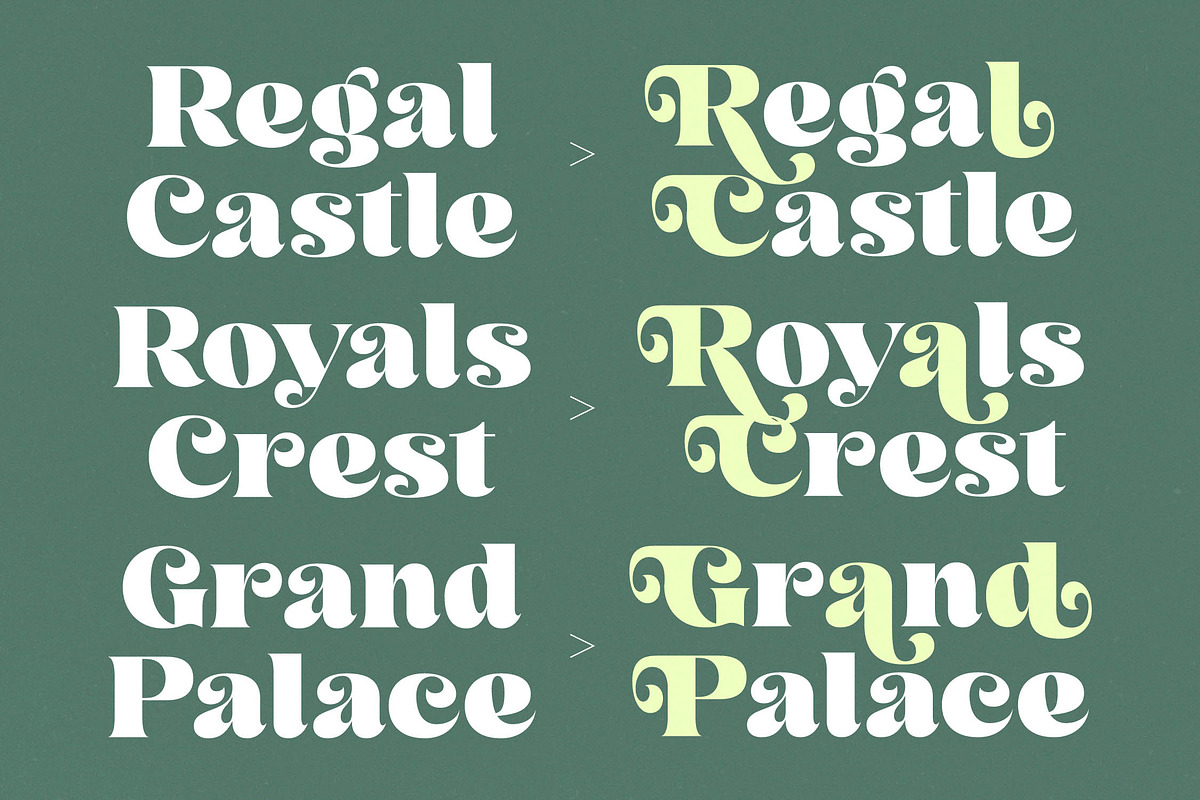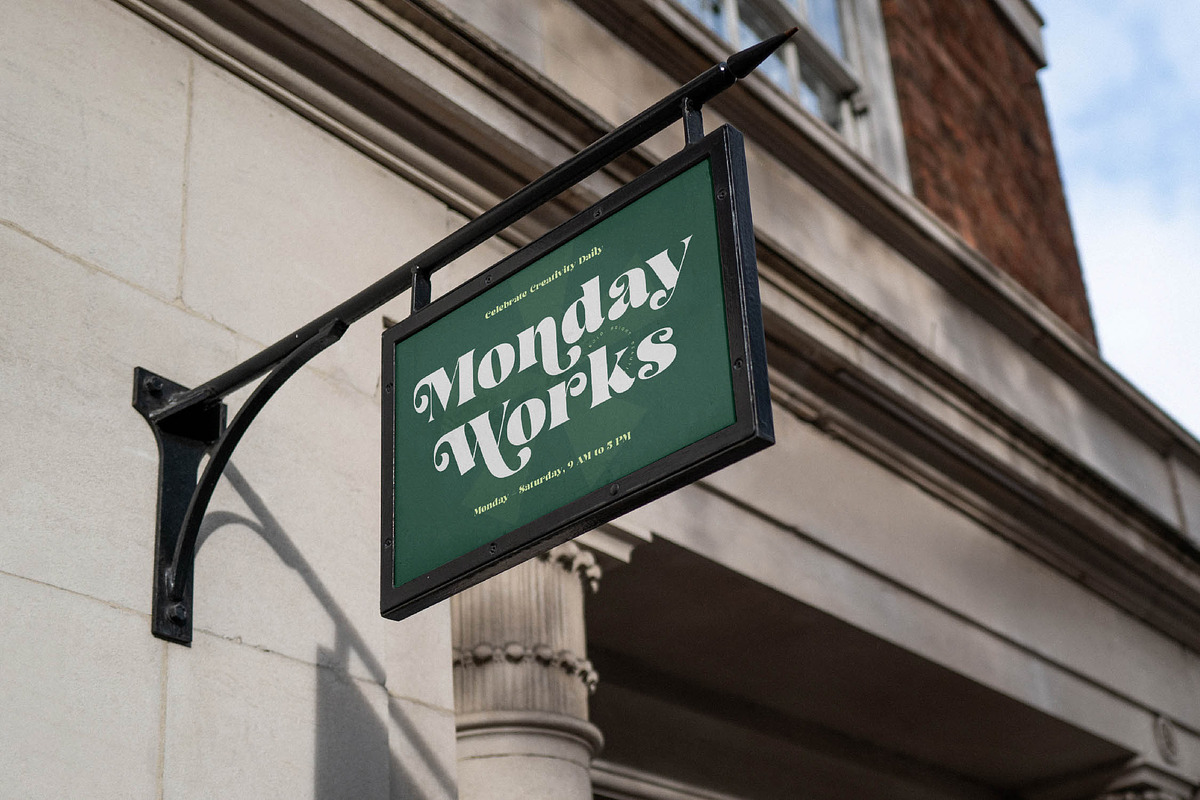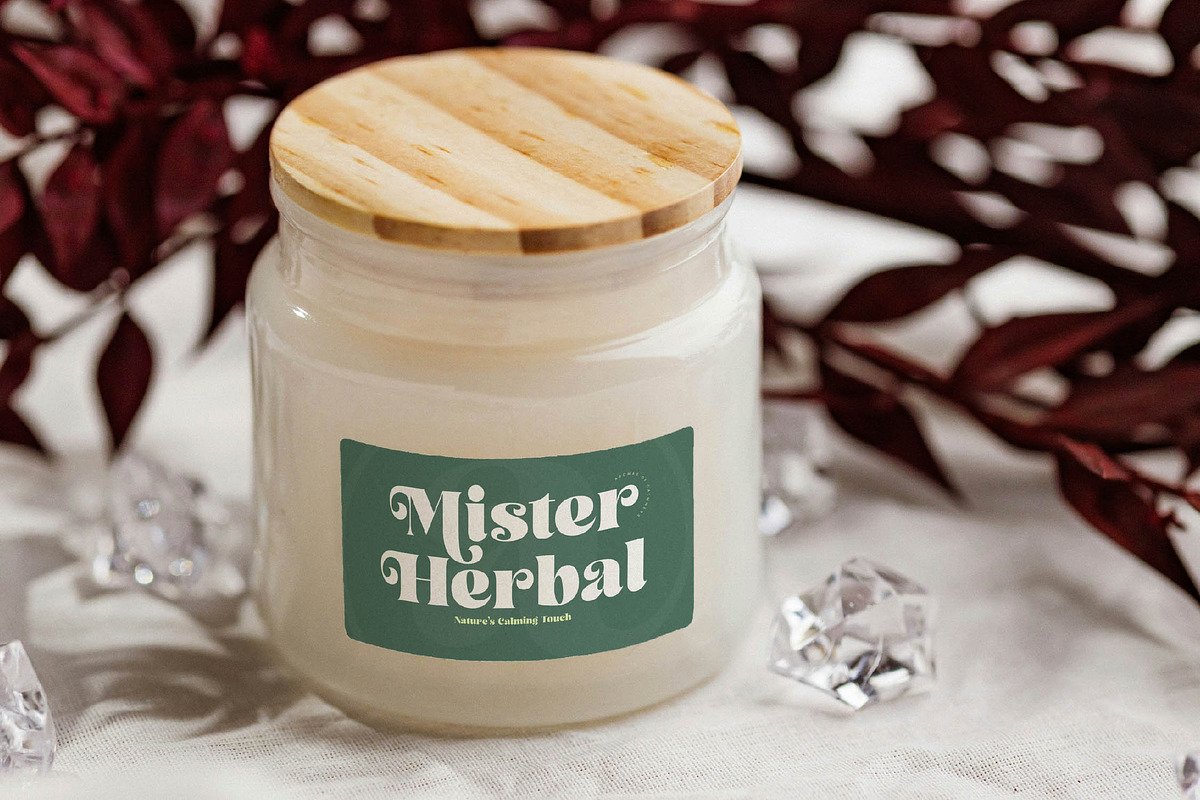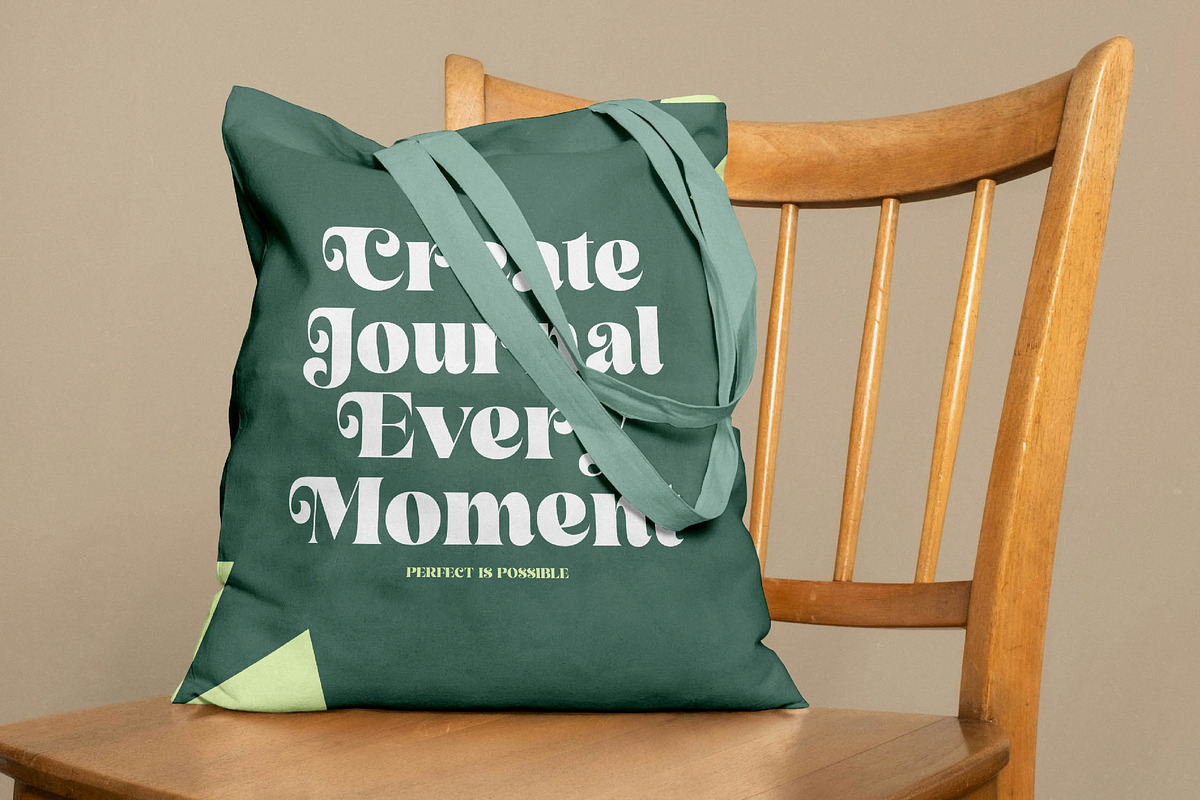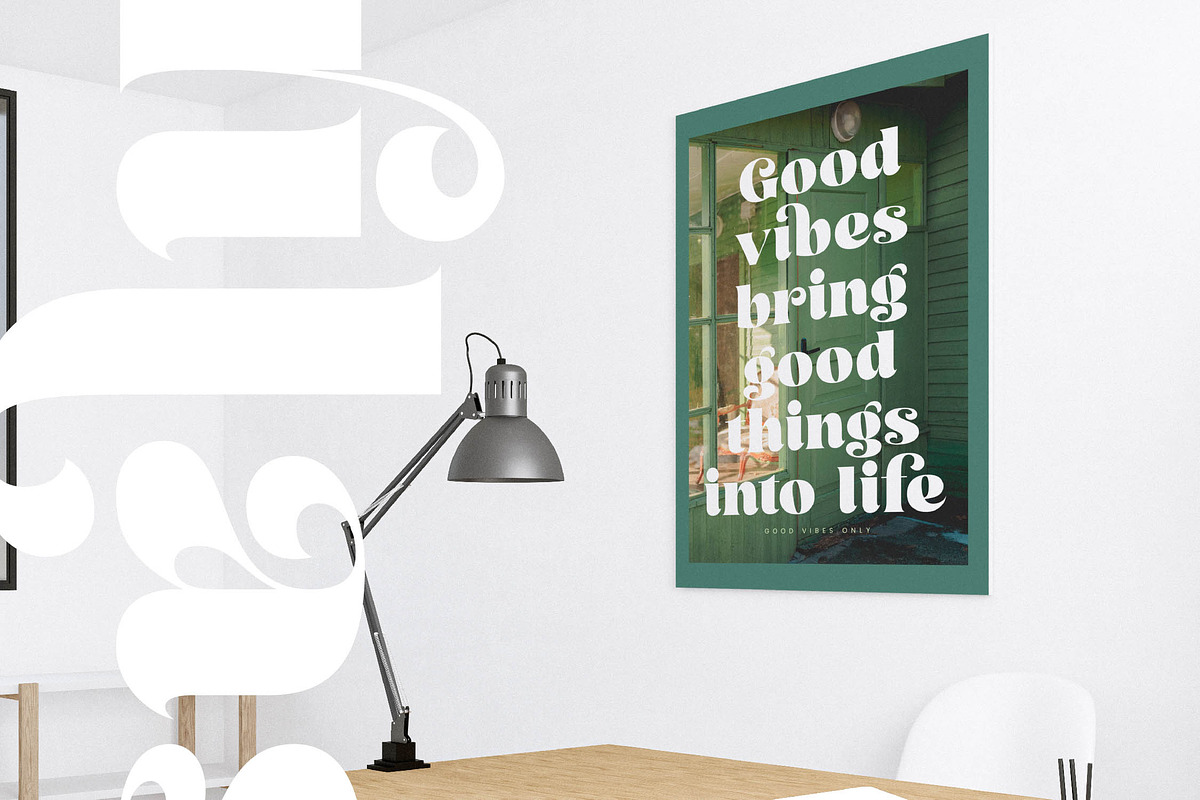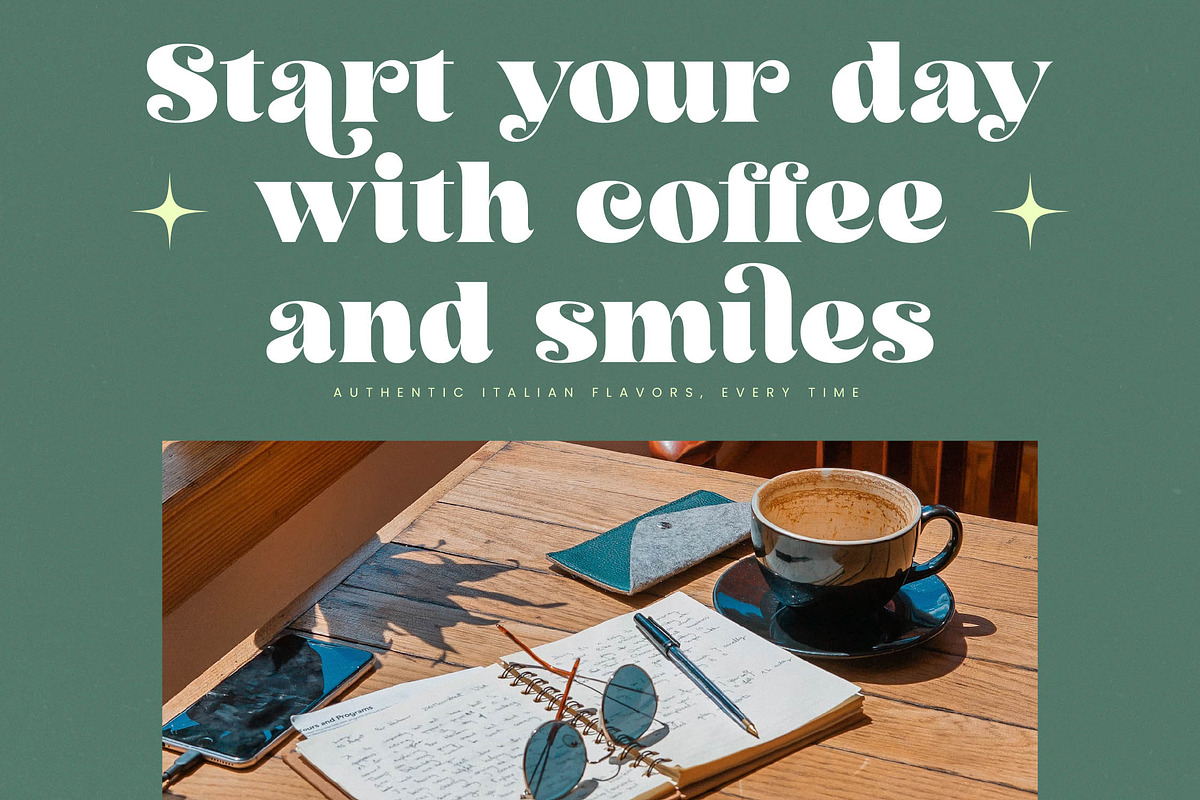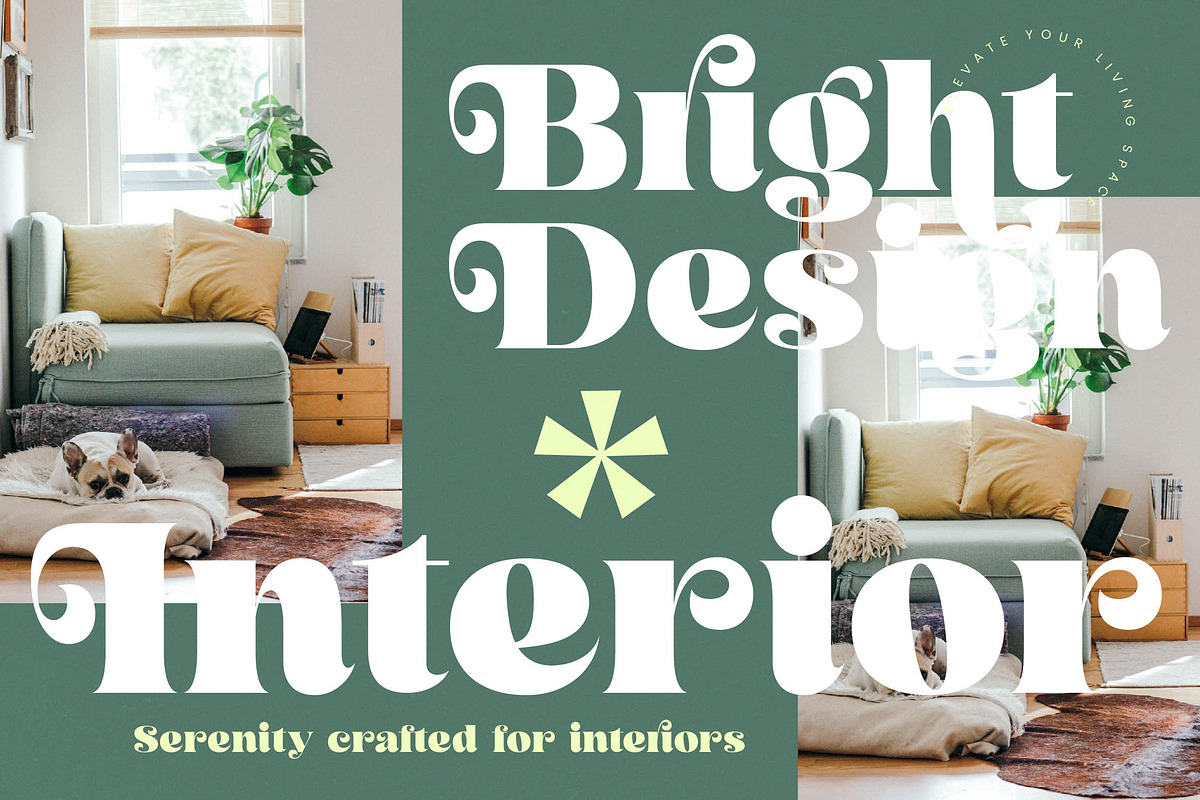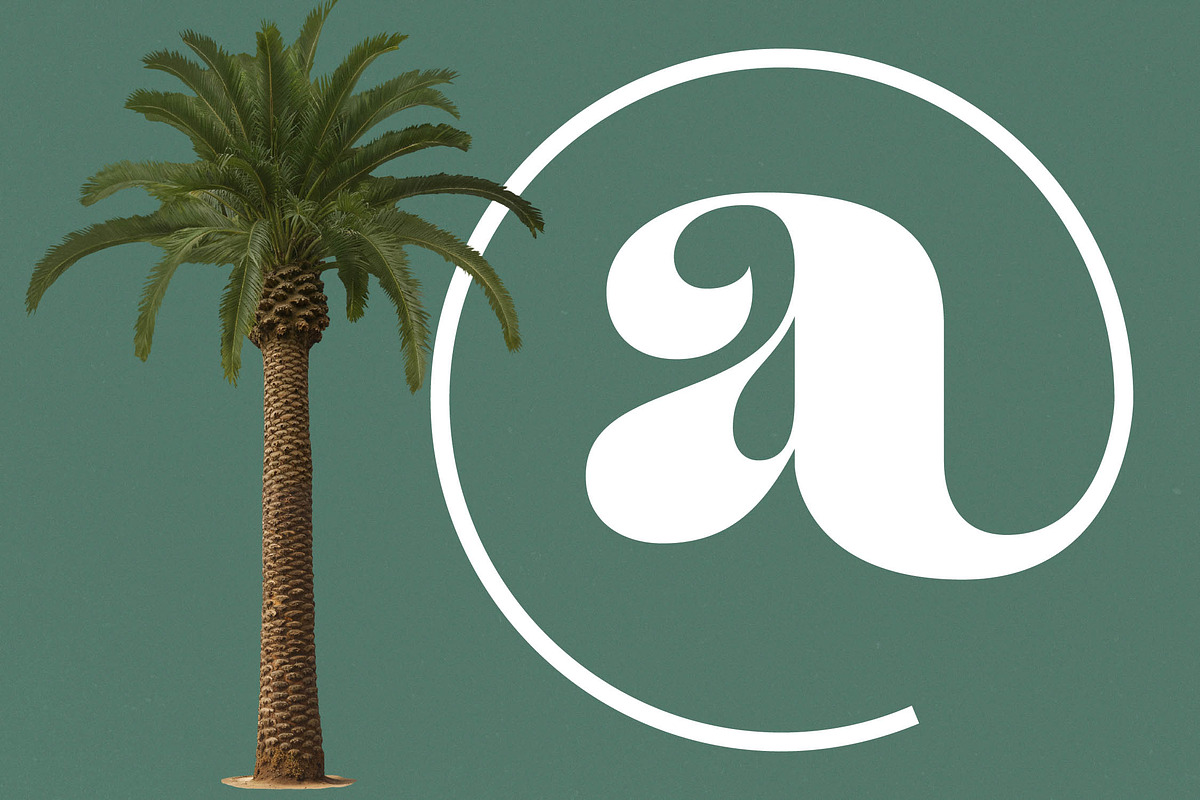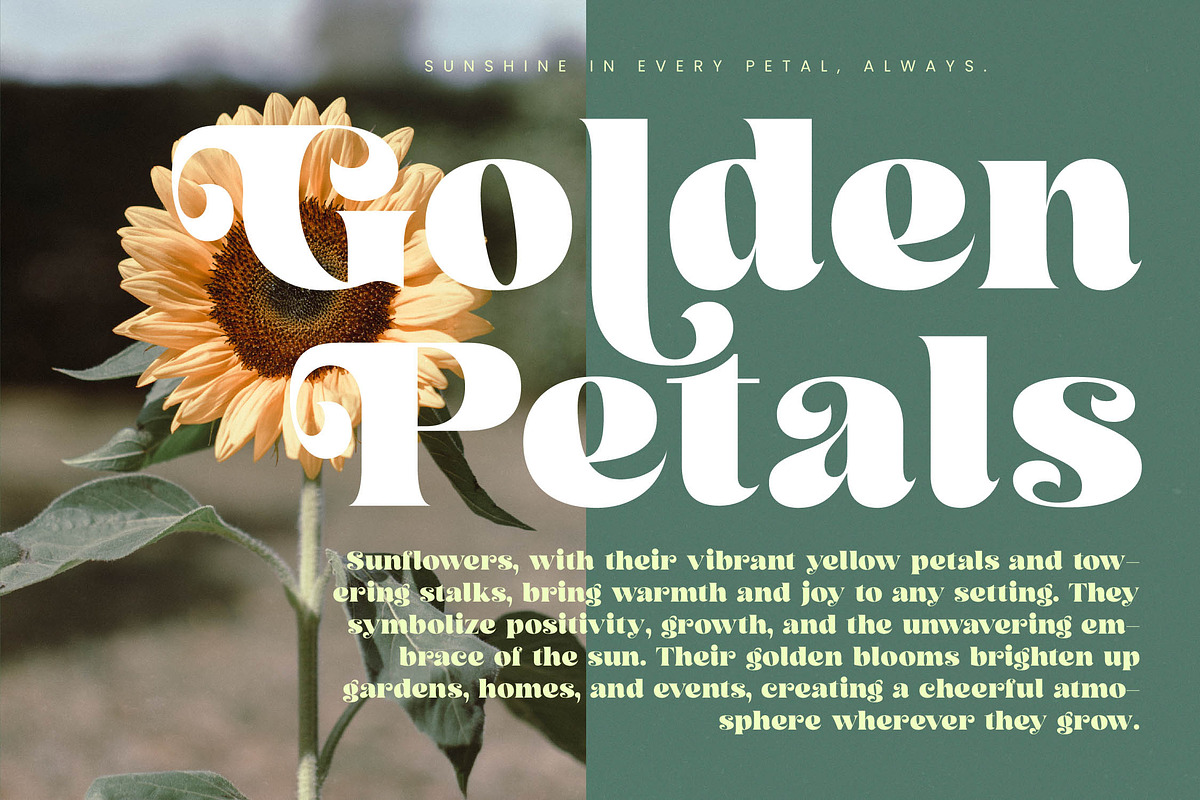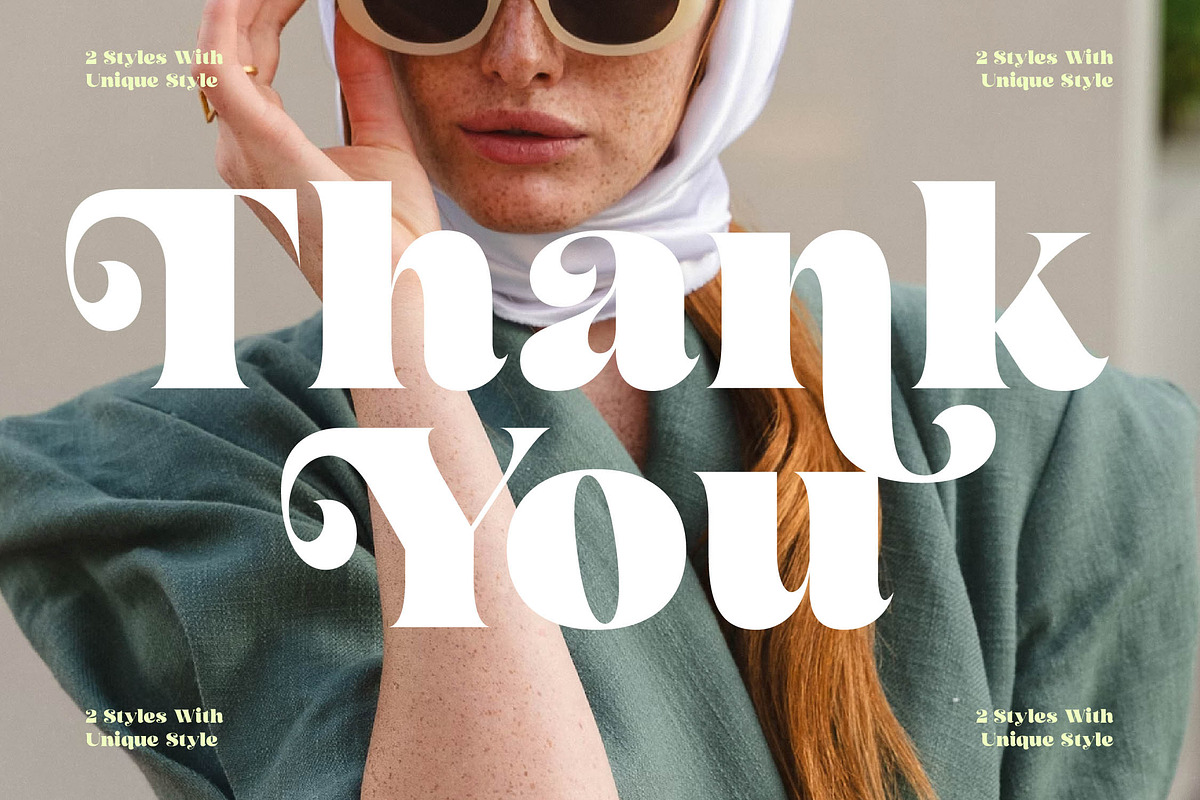
Arilast Kingde Modern Luxury Serif
Step into a world of timeless sophistication with Arilast Kingde, a typeface designed to command attention and evoke an air of effortless luxury. This font captures the essence of high-end aesthetics, blending classic structures with a bold, contemporary flair.
Inspired by the golden era of editorial design and the refined silhouettes of Parisian haute couture, its forms are balanced between sharp edges and flowing curves. It breathes the atmosphere of boutique hotels, sun-drenched Mediterranean villas, and the polished pages of premium lifestyle magazines.
The modern serif display nature of this typeface makes it a powerhouse for luxury typography, offering a high-contrast serif look that is essential for a high-end editorial font. Every glyph is meticulously crafted to ensure maximum branding impact, making your message feel both exclusive and authoritative.
As the modern serif trend continues to dominate the visual landscape, this typeface stands out by offering editorial display fonts that feel personal and handcrafted. It embraces the shift toward character-driven typography, allowing designers to break away from generic styles and embrace a more soul-stirring visual language.
This font is perfectly suited for high-stakes logo design and comprehensive branding projects where elegance is non-negotiable. Whether it is used for high-fashion editorial layouts, premium packaging, bespoke wedding invitations, or upscale fashion labels, it delivers a consistent aura of prestige.
The package is loaded with over 20 unique ligatures and 70 stylistic alternates that allow for custom-tailored headlines. With a comprehensive set of swashes and full multilingual support for international characters, it provides the technical flexibility required for global creative projects.